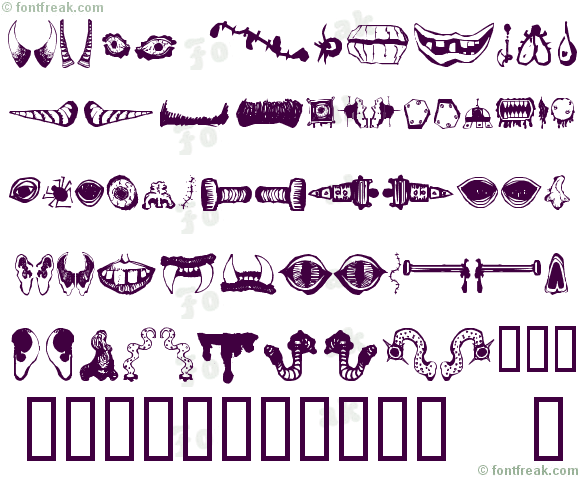
MonsterMasher
About MonsterMasher
MonsterMasher by Omega Font Labs is a unique decorative font that captures the essence of playful horror and whimsy. Designed with a distinct style, this font combines elements of both display and decorative categories, making it perfect for projects that require a bold statement. The visual characteristics of MonsterMasher include irregular stroke weights and a playful, jagged appearance that evokes a sense of fun and mischief. The spacing is intentionally varied, adding to the dynamic and energetic feel of the font, while its quirky, monster-themed decorative elements make it stand out.
This font is ideal for a variety of creative applications. It shines in the realm of Halloween-themed party invitations, where a touch of spookiness is desired. Additionally, MonsterMasher is perfect for movie posters, particularly in the horror or comedy genres, where its whimsical yet eerie style can capture attention and convey the right mood. Restaurant menus with a fun, thematic twist, such as a monster-themed eatery, can also benefit from the font's unique flair. Furthermore, it is an excellent choice for children's book covers and illustrations, where the playful nature of the font can engage young readers.
The target audience for MonsterMasher includes graphic designers looking for a standout typeface to add character to their projects, small business owners aiming to create memorable branding, and content creators in need of an eye-catching font that resonates with their themes. The MonsterMasher font free download offers an accessible opportunity for creatives to incorporate this distinctive typeface into their work.
What sets MonsterMasher apart is its ability to blend fun with a touch of spookiness, making it versatile for various projects. Its unique character and playful design ensure that it will leave a lasting impression, making it a go-to choice for any design that seeks to capture the imagination.